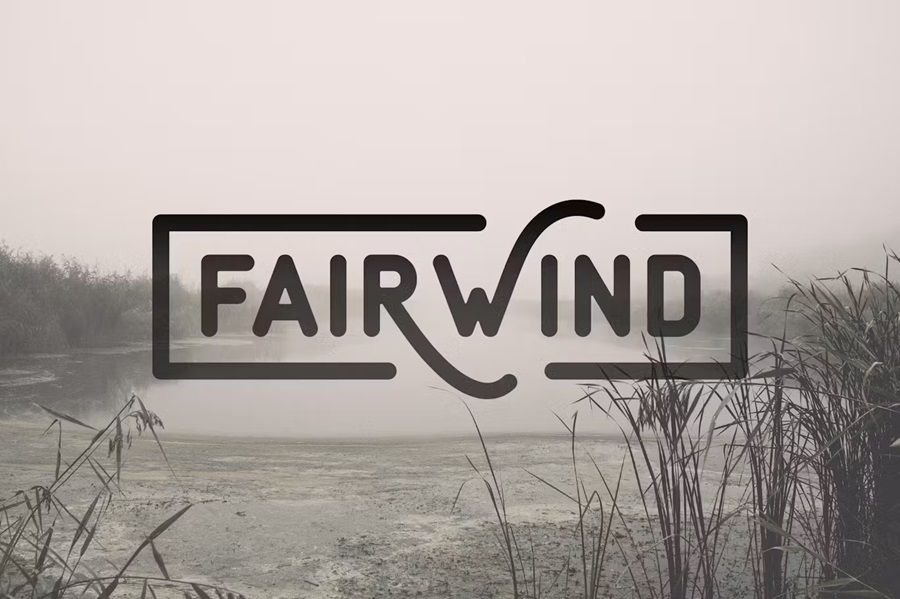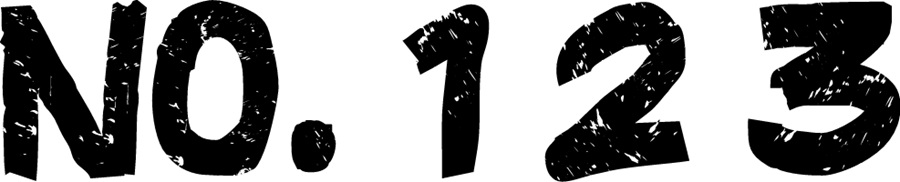
A classic look never goes out of style. Some of the reasons you might need vintage number fonts for your designs include events embracing the history of a company, wedding programs and invitations, and celebrations that take a look back to decades gone by.
If you’ve looked at old newspapers, movie posters and documents, you likely have an idea of the swoops, swirls and serifs of vintage writing. The styles of today are much simpler and minimalistic. Start by researching the decade you’re trying to embody.
What Makes Number Fonts Look Classic?
What is the difference between antique, retro and vintage? Antique typically applies to things 100 years old or more. According to an article on Bob Villa, vintage applies to things between 20 and 99 years old. Merriam Webster defines retro as styles relating to the past. Because of the broader definition, retro can also be vintage.
What are the characteristics of number fonts that make them look vintage? Some are easy to identify, such as the sci-fi looking fonts of the early Star Wars era, or 1980s neon styles. Retro fonts often have big bold patterns and accents that tie to the styles and fashion of the era.
List of Vintage Number Fonts
The best way to get a feel for what fonts from different eras look like is to check out some examples of vintage number fonts. Here are a few of our favorites.
1. Vintage Machine
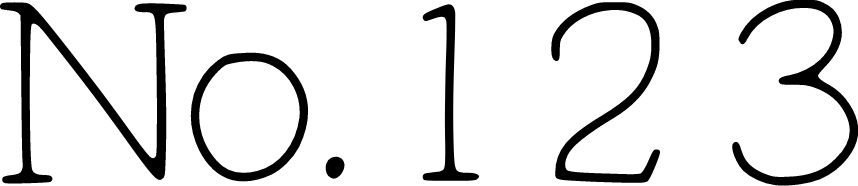
Vintage Machine is a font that has a decidedly handwritten look. It would work well on an invitation or printed material. Note the serifs and the uneven strokes on the numbers, giving it a penned appearance.
2. Aerologica
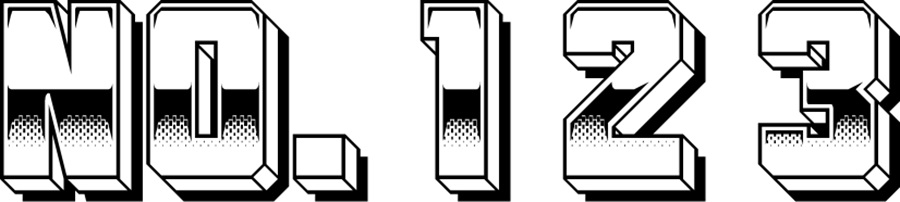
Aerologica reminds us of a time when computers were just becoming commonplace in middle class households across America. People from all walks of life began playing with desktop publishing and experiencing the fun of three-dimensional, computer-generated fonts such as the one here.
If you want to bring the 1980s to life, this retro font is an excellent start. It makes one think of movies such as Back to the Future. The heavy block numbers and shading make this font most suitable for headlines.
3. Genty
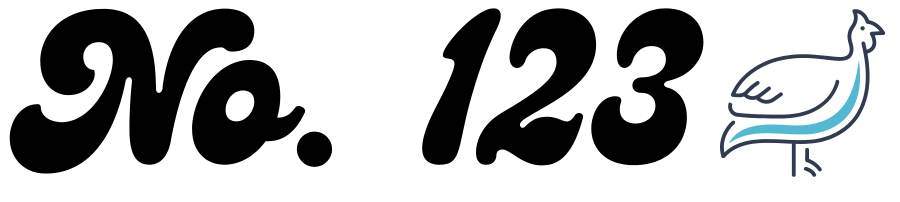
Canva has a wealth of styles to match almost any decade you desire. We love the retro, Partridge Family look of this 1970s-themed font. Look how the strokes on the numbers vary from thin to wide. The series and swirls give it a fancier look.
Genty would work well for an event poster for a retro 1970s party or a special sale about rolling back the clock on prices.
4. Market Deco
Market Deco has a definite art-deco look that pulls users in. The font has a vintage appeal but is also modern enough for almost any project type. You’ve likely seen this and similar vintage number fonts on addresses. It looks like something you’d see on a mailbox or the outside numbering of an office or apartment building.
5. 1960s Hippie
1960s Hippie vintage number font brings back the styles of the decade. It’s the dawning of the Age of Aquarius, a season of free love and a time when life was ruled by youth rather than electronics.
People often choose this era for various events because the fashions were iconic and the entire era makes for an interesting office party theme, birthday celebration or ties into natural product releases.
The font is quite bold and thick. Yet, the opening on the “O” is tiny. Because of the bulkiness of the font, it’s best to use it on a larger scale, such as for a heading, on a billboard or in a logo.
6. Freezone
Freezone looks like it came right out of the 1990s grunge era. It’s a time of skate parks, hanging out with friends, testing the boundaries of fashion and a new style of music for a generation.
Like many of the vintage number fonts in this lineup, Freezone works best as a heading or logo. Want to have a party and bring back all your favorite music? Freezone can help with the invites. Ready to host that 1990s grunge band you loved? Enter Freezone for the posters.
7. Lazer84
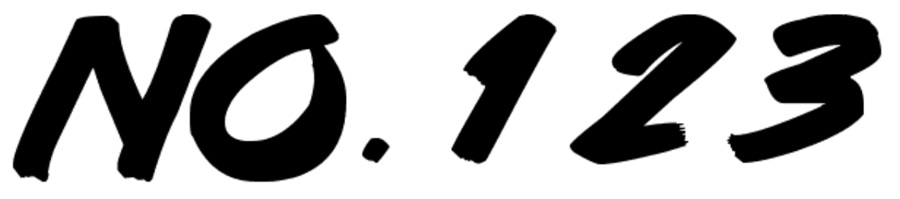
Remember when laser arcades were a thing to do on the weekends? If you want to bring back the mid-80s and a retro, neon look, the font Lazer84 is a great place to start.
Imagine the numbering above in an electric blue, neon pink or glowing green. You can also see and hear the inside of the arcade or laser tag arena.
8. Yesteryear Font
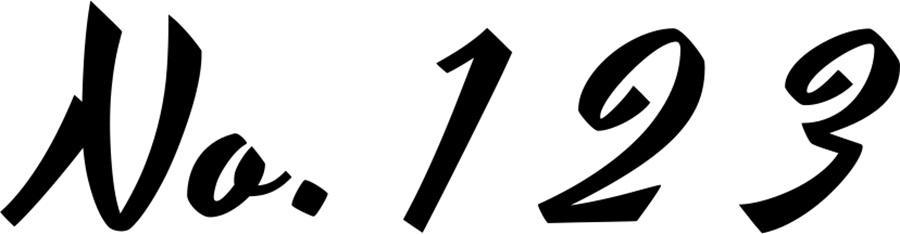
Yesteryear Font goes into vintage number fonts territory with its handwritten look. One can imagine a friend writing another friend a nice letter after a lunch out together at the local ladies club. The font would work well for a 1940s or even a 1950s theme.
The art of calligraphy is alive and well with Yesteryear Font. If you’re looking for a nice font for a formal invitation, this one fits the description. You can give the invite a vintage feel without using cursive. The swirls and ligatures on this font make it unique. It also has a few geometric elements that add interest.
Finding More Vintage Number Fonts
If you want your designs to stand out from others, locating unique fonts no one else is using can be the ticket to drawing in more clients and keeping the ones you have happy. The eight fonts above are an excellent choice for nearly any type of project.